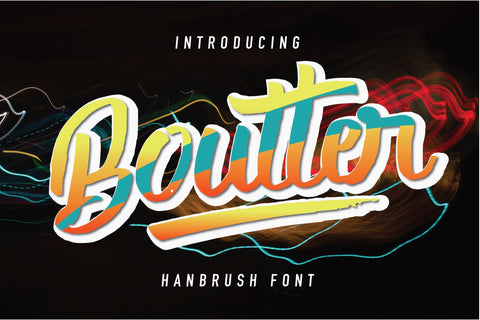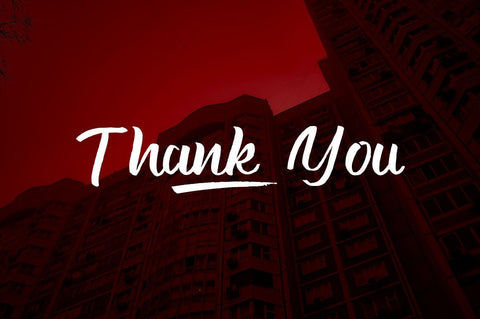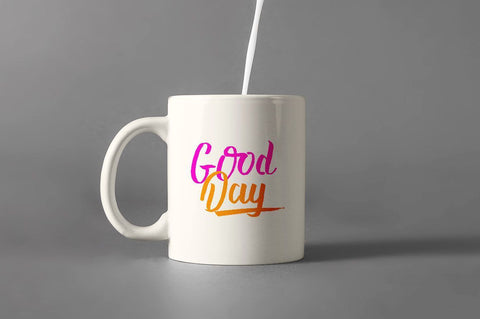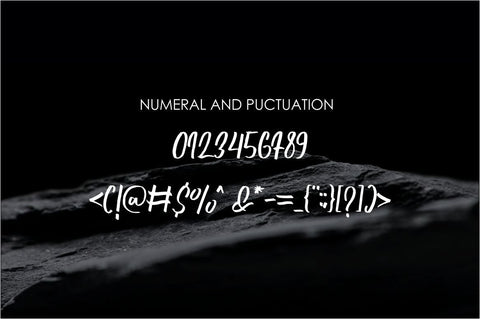
Routter suck Handbrush Font
Routter Suck is a Handbrush Font, This font is handmade and has a powerful character with SWSH. The font is work specialty is good for product design like a Template/mockup, Post, T-shirt, Quote, New Years Present, typography design, etc. This product is inspirational for your creative design.